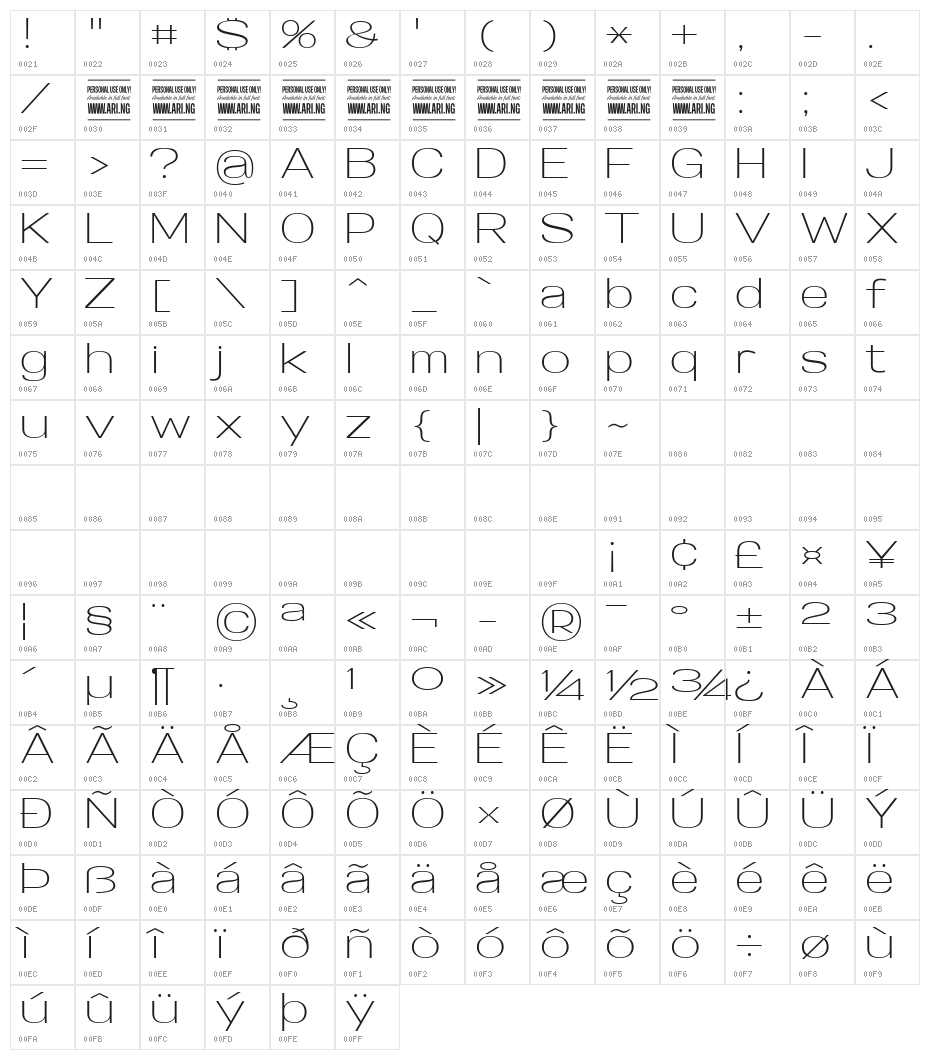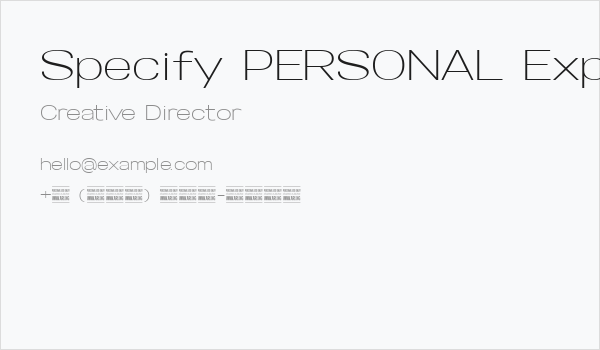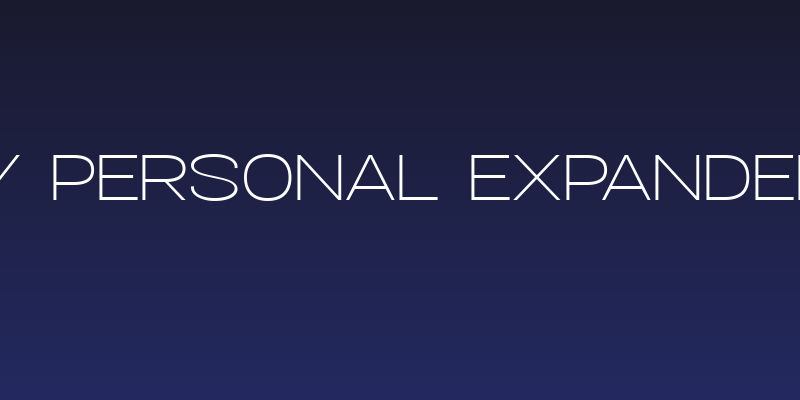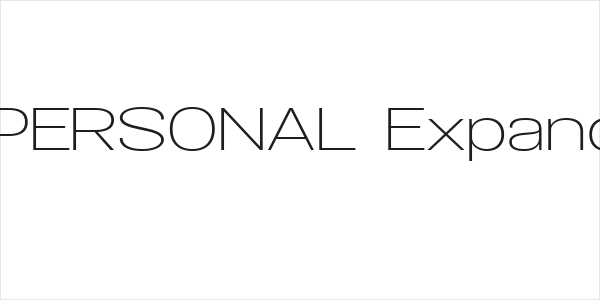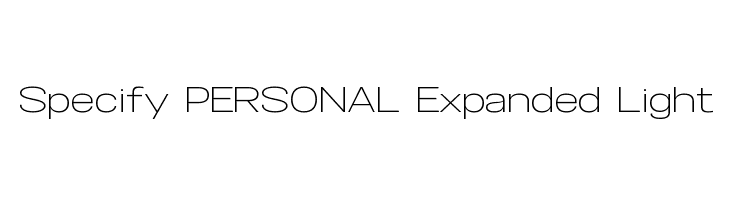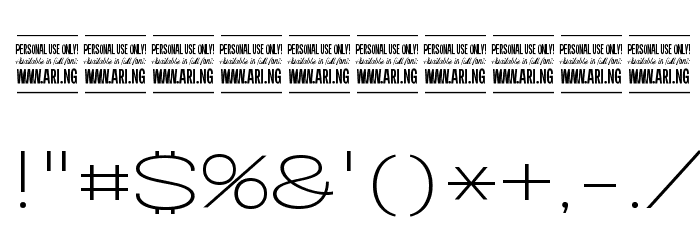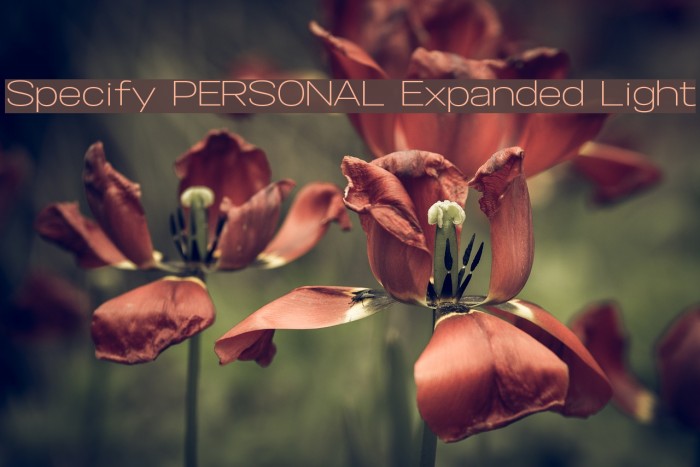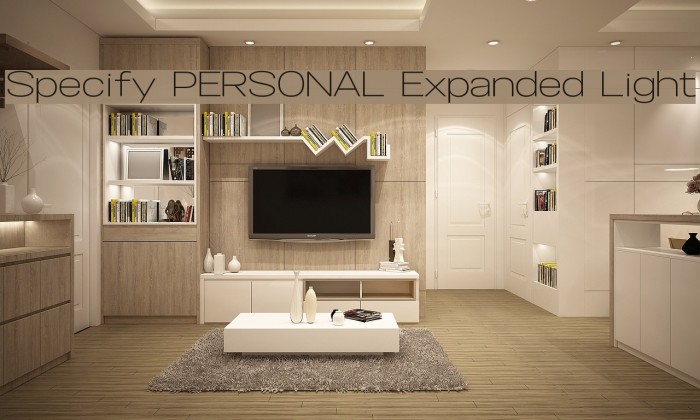
Specify PERSONAL Expanded Light Font
Specify PERSONAL Expanded Light Description
This font features a clean and modern design with an expanded width, giving it a spacious and airy appearance. The characters are light in weight, contributing to a sleek and elegant look. The sans-serif style ensures a contemporary feel, making it suitable for a variety of design applications. The uniform stroke width across characters provides a low contrast, enhancing readability and maintaining a minimalist aesthetic. The character spacing is normal, allowing for clear distinction between letters while maintaining a cohesive flow.
| Proposed Projects | Ideal for branding, advertising, and web design projects where a modern and clean look is desired. Suitable for headlines and display purposes. |